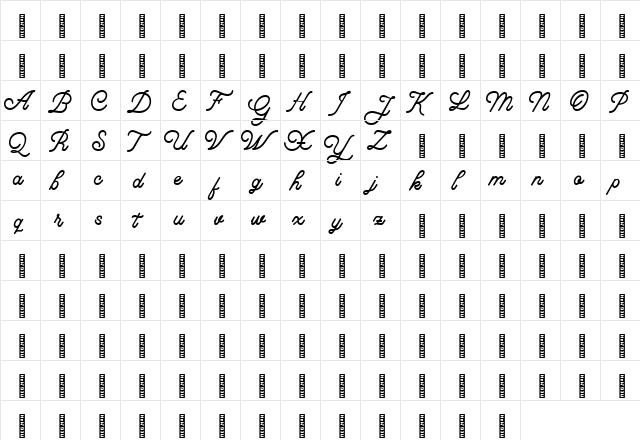
Florista Regular
Design Context for Florista Typeface
Florista is a composed and adaptable typeface that performs quietly and consistently across a wide range of design contexts.